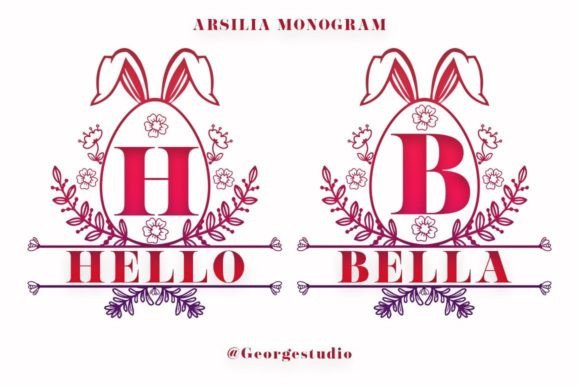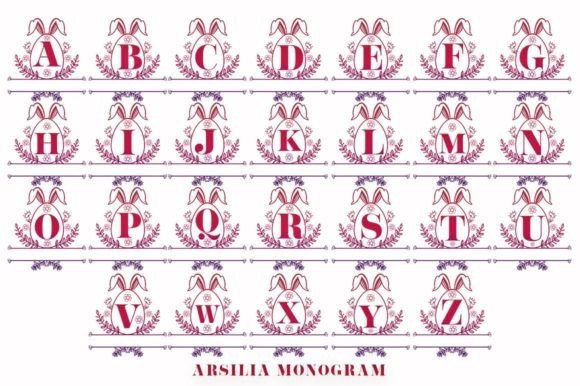
Discover the Elegance of Arsilia Font: A Dainty Monogram Font for Stunning Designs
Are you a designer or crafter looking for a font that exudes elegance and sophistication? Look no further than the Arsilia Font, a dainty and beautiful monogram font that is sure to captivate your audience. With its ravishing style, Arsilia Font is the perfect choice for creating gorgeous designs that stand out from the crowd.
What is Arsilia Font?
Arsilia Font is a monogram font that features intricate and delicate designs, making it perfect for a variety of design projects. Its unique and elegant style is sure to add a touch of sophistication to any design, whether you’re creating a logo, branding materials, or craft projects.
Characteristics of Arsilia Font
So, what makes Arsilia Font so special? Here are some of its key characteristics:
- Dainty and delicate design: Arsilia Font features intricate and detailed designs that are perfect for creating elegant and sophisticated designs.
- Monogram style: This font is a monogram font, making it perfect for creating custom monograms and logos.
- Ravishing style: Arsilia Font has a unique and captivating style that is sure to grab attention.
- Versatile: This font can be used for a variety of design projects, from logos and branding materials to craft projects and more.
Uses of Arsilia Font
Arsilia Font is a versatile font that can be used for a variety of design projects, including:
- Logo design: Create custom logos and branding materials with Arsilia Font.
- Craft projects: Use Arsilia Font to add a touch of elegance to your craft projects, such as scrapbooking, card making, and more.
- Wedding designs: Arsilia Font is perfect for creating beautiful wedding designs, such as wedding invitations, monograms, and more.
- Stationery design: Use Arsilia Font to create custom stationery, such as letterheads, business cards, and more.
Why Choose Arsilia Font?
So, why should you choose Arsilia Font for your design projects? Here are just a few reasons:
- Unique and elegant style: Arsilia Font has a unique and captivating style that is sure to grab attention.
- High-quality design: Arsilia Font is a high-quality font that is designed to produce crisp and clear designs.
Tips for Using Arsilia Font
Here are a few tips for using Arsilia Font in your design projects:
- Use it sparingly: Arsilia Font is a bold and elegant font, so use it sparingly to add emphasis to your designs.
- Pair it with other fonts: Arsilia Font can be paired with other fonts to create a unique and interesting design.
- Experiment with colors: Arsilia Font looks great in a variety of colors, so experiment with different colors to find the one that works best for your design.
Arsilia Font is a dainty and beautiful monogram font that is perfect for creating elegant and sophisticated designs. With its unique and captivating style, Arsilia Font is sure to grab attention and add a touch of elegance to any design project. Whether you’re a designer or crafter, Arsilia Font is a great choice for anyone looking to create stunning designs.